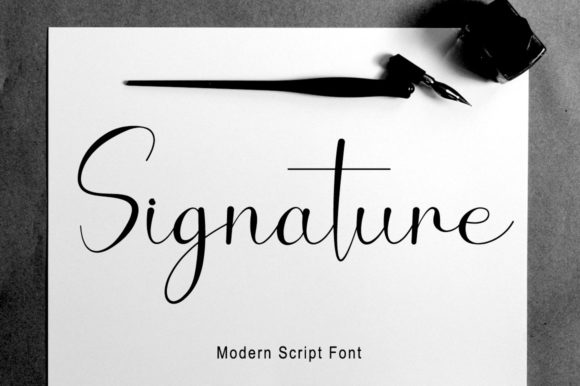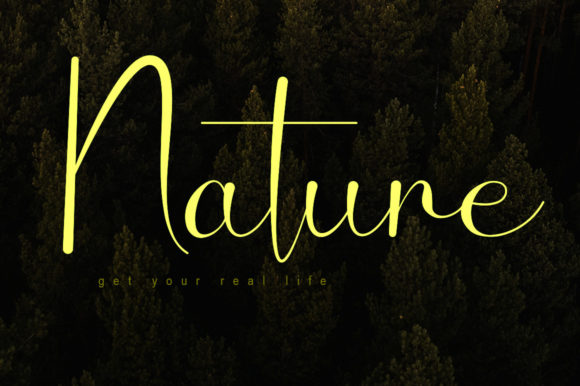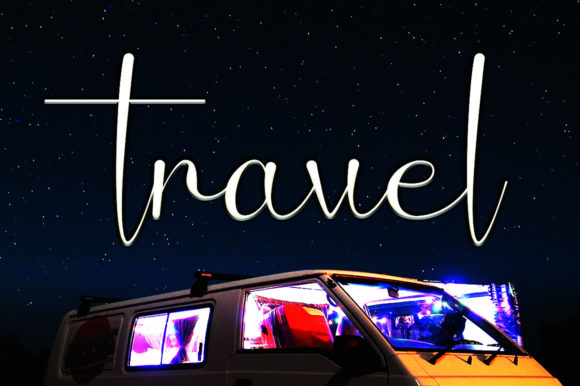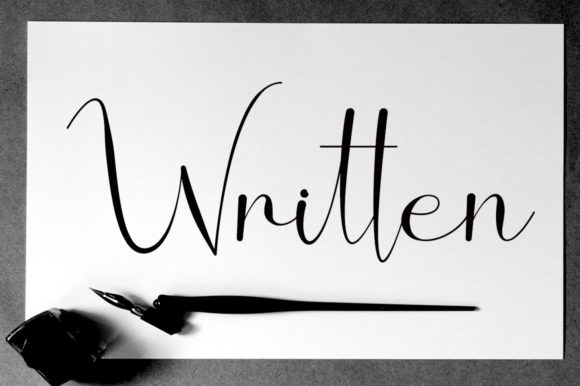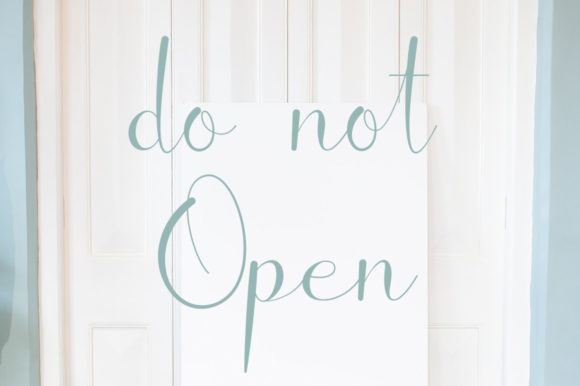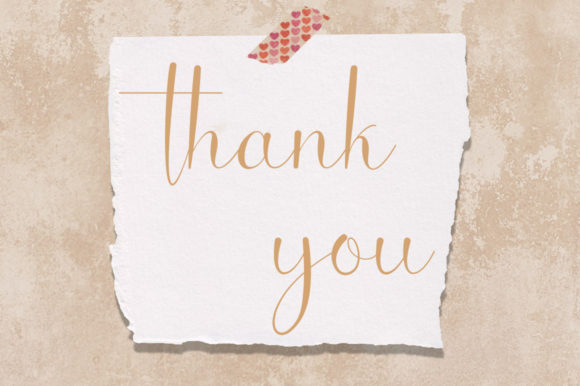
Signature is a beautifully flowing script font suitable for your most elegant and creative projects! Use it for birthday cards, invitations, personal branding, business cards, or other designs that need a personal note.